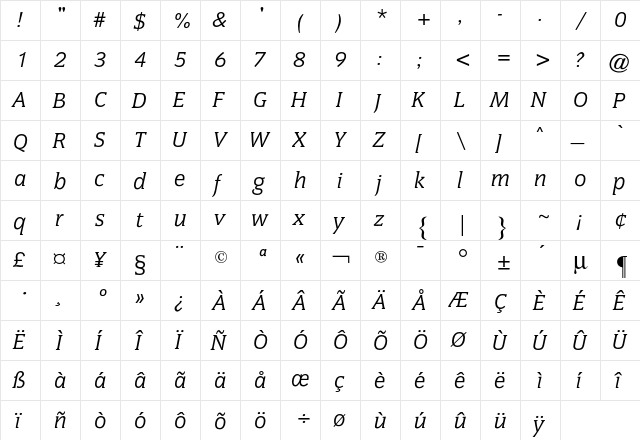
Congress CG Italic
Design Context for Congress CG Typeface
Congress CG takes a measured approach to typography — its balanced proportions and neutral character make it a reliable workhorse for both digital and print work. Its italic angle brings a sense of urgency and motion to the letterforms.
Pro Tip: Use Congress CG for emphasis, pull quotes, and subheadings where its slanted energy can add rhythm to the layout.